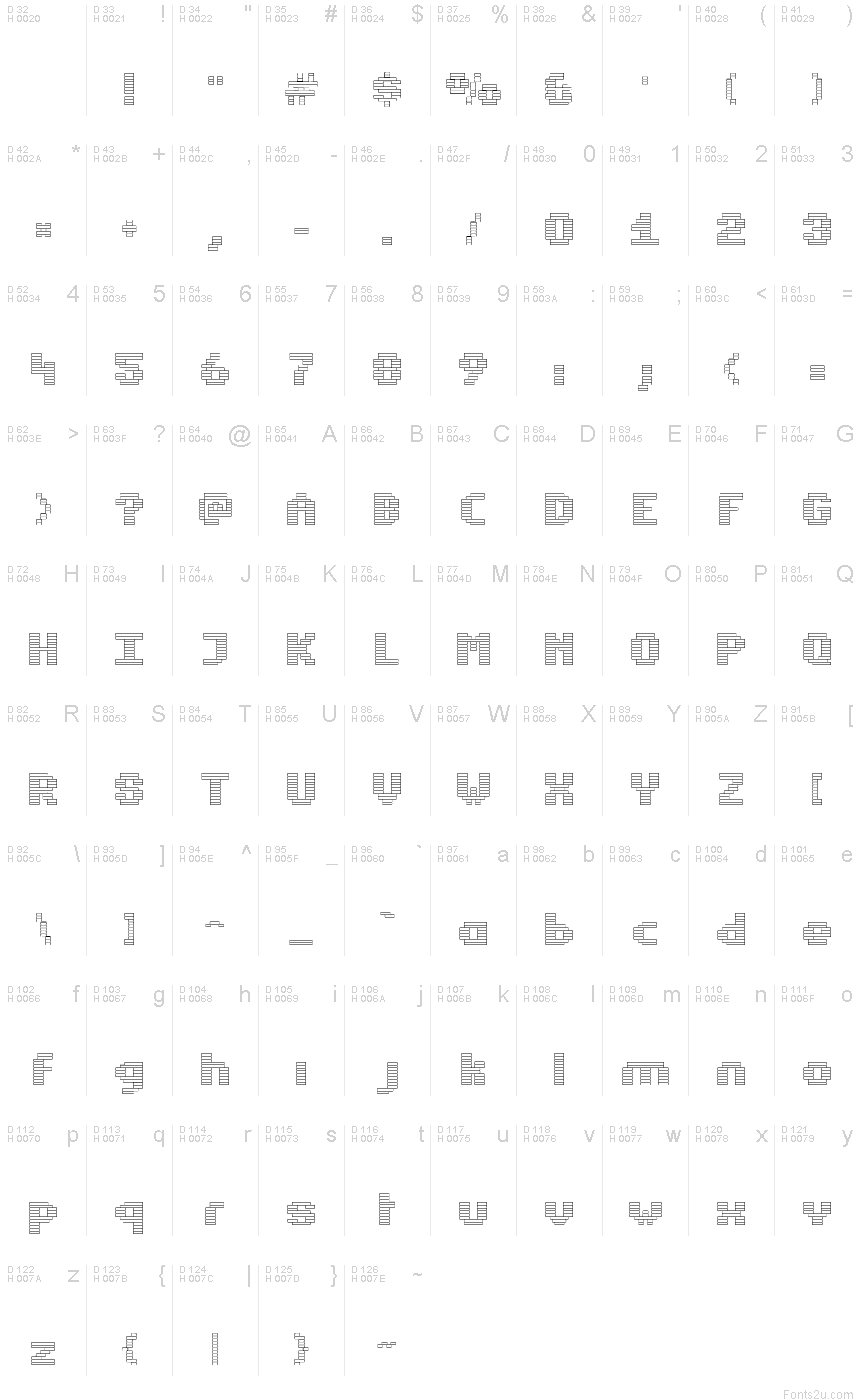
Estrogen-Pill
Estrogen-Pill font by Apostrophic Labs is a free decorative digital display font. Each letter is built from crisp, pill-shaped bars stacked like tiny neon bricks, creating a modular, lab-tech vibe that still feels playful. The thin outlines and even spacing give the text a clean, diagram-like structure, as if it’s been plotted on graph paper with a steady hand.
Using Estrogen-Pill, headlines feel engineered rather than merely typed, so it shines on sci‑fi posters, experimental album covers, glitchy event flyers, tech zines, packaging, and bold logotypes. This free font works best at larger sizes where its segmented construction reads clearly. Pair it with a simple geometric sans serif for body copy to keep the visuals sharp without stealing its strange, clinical charm.